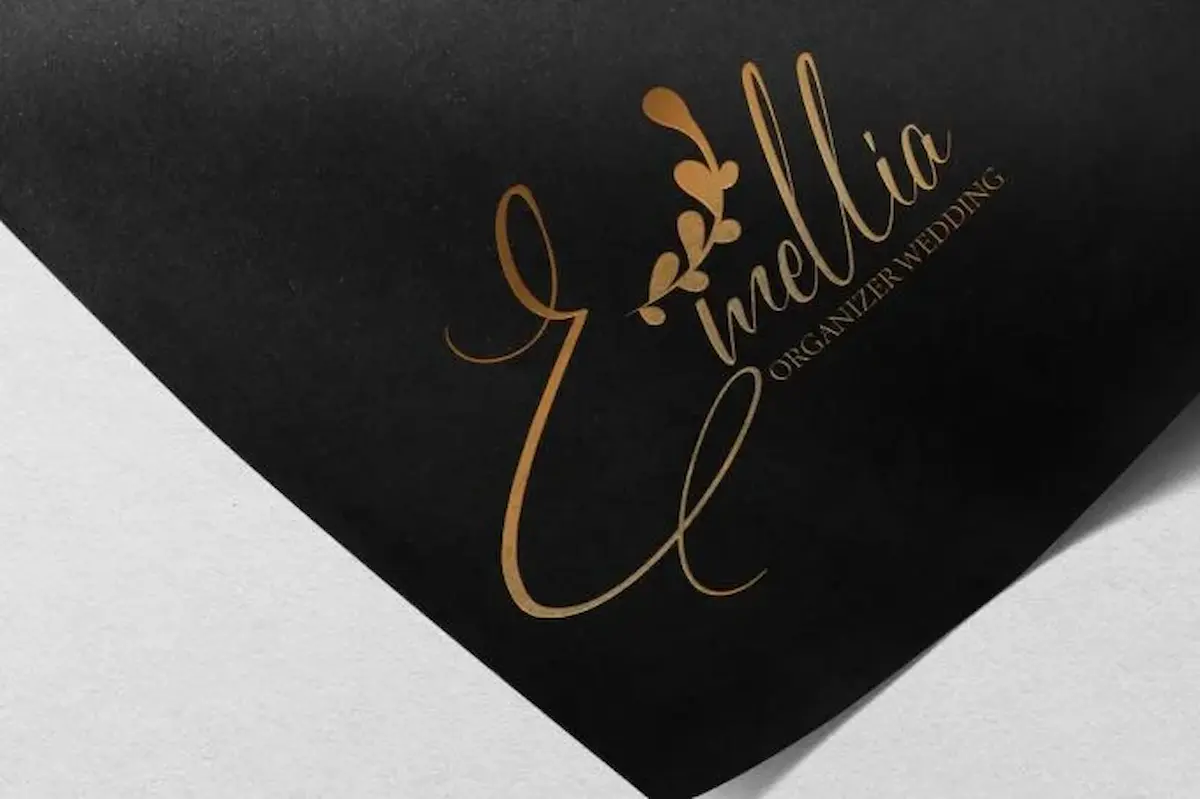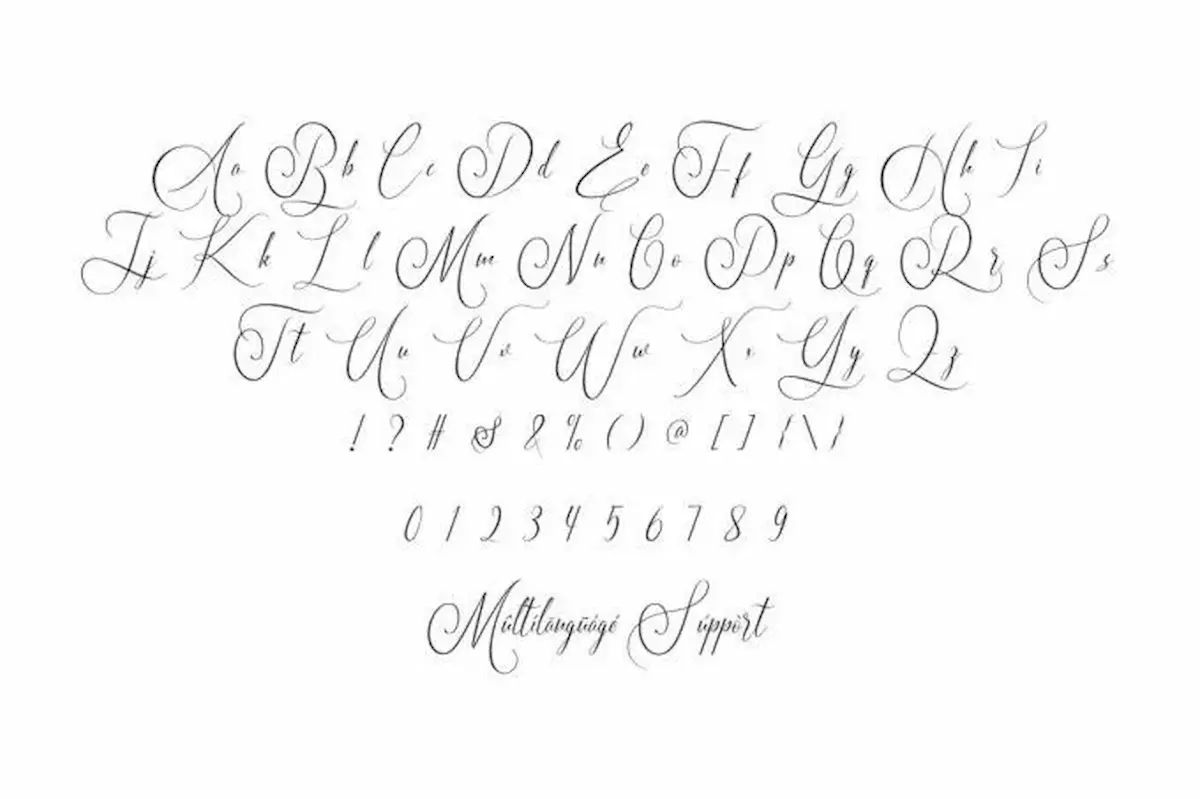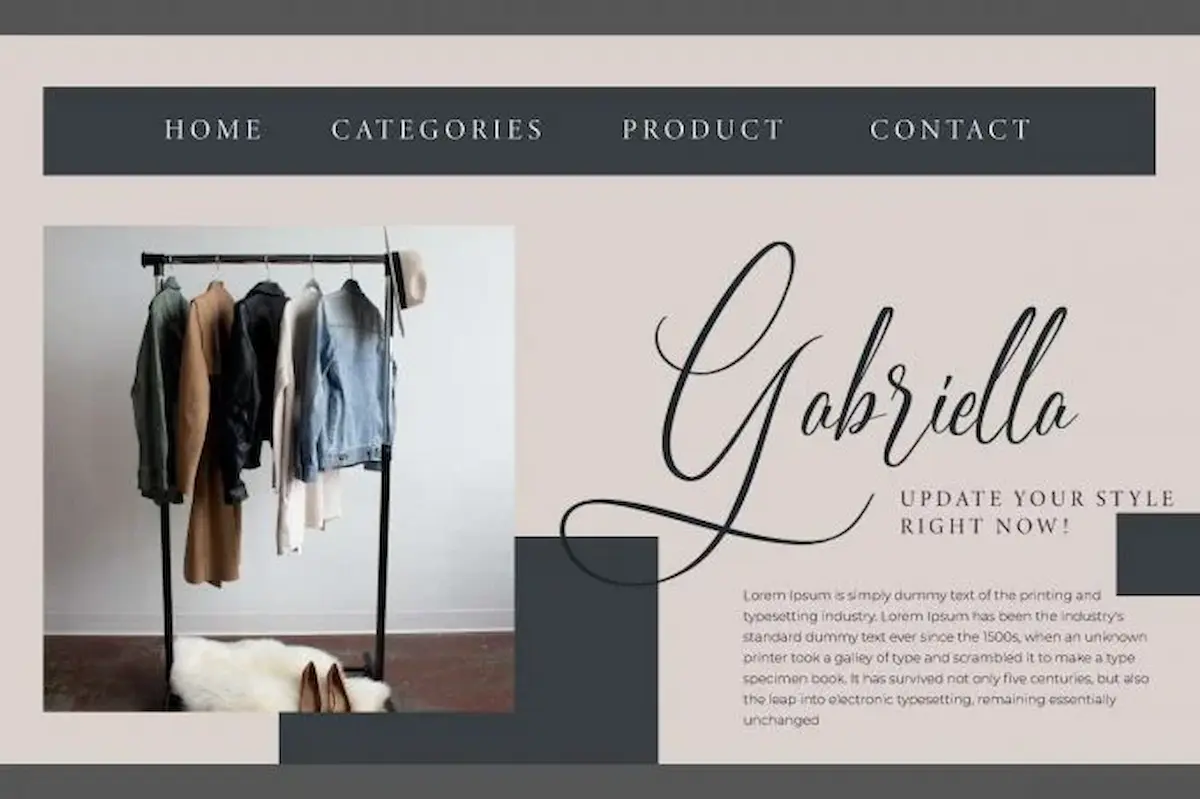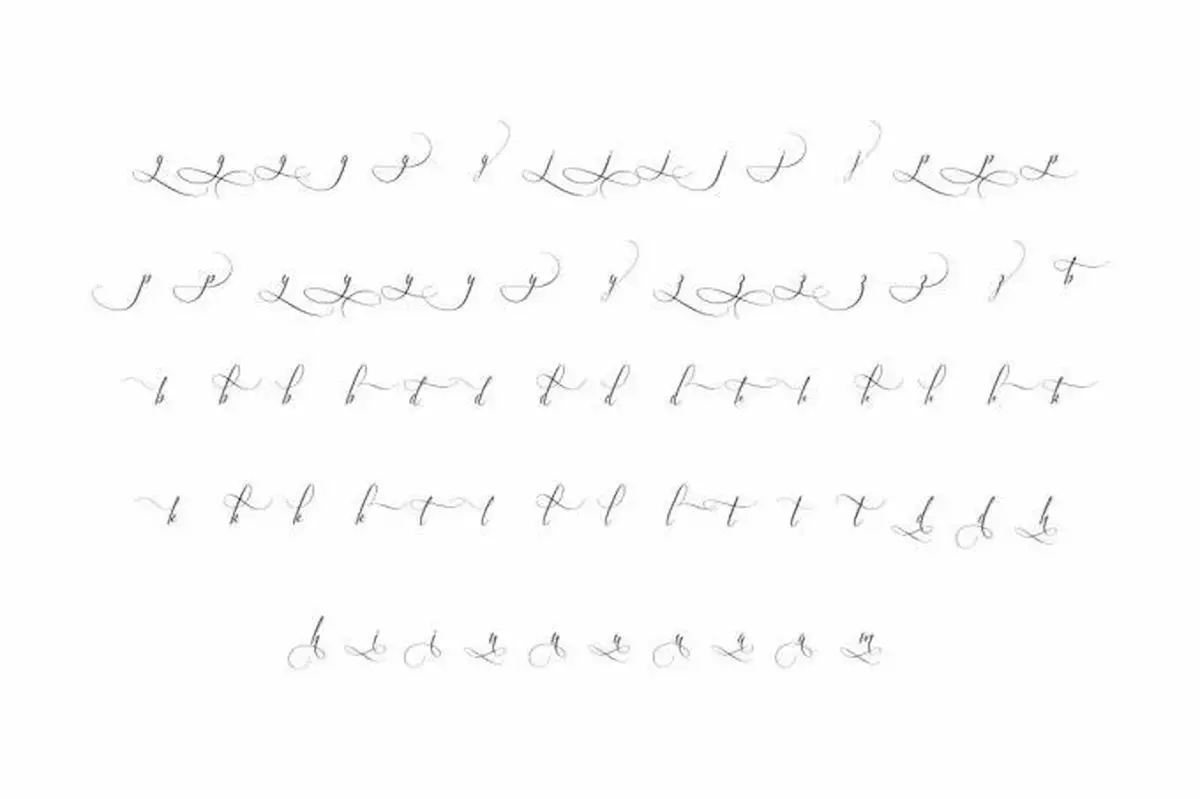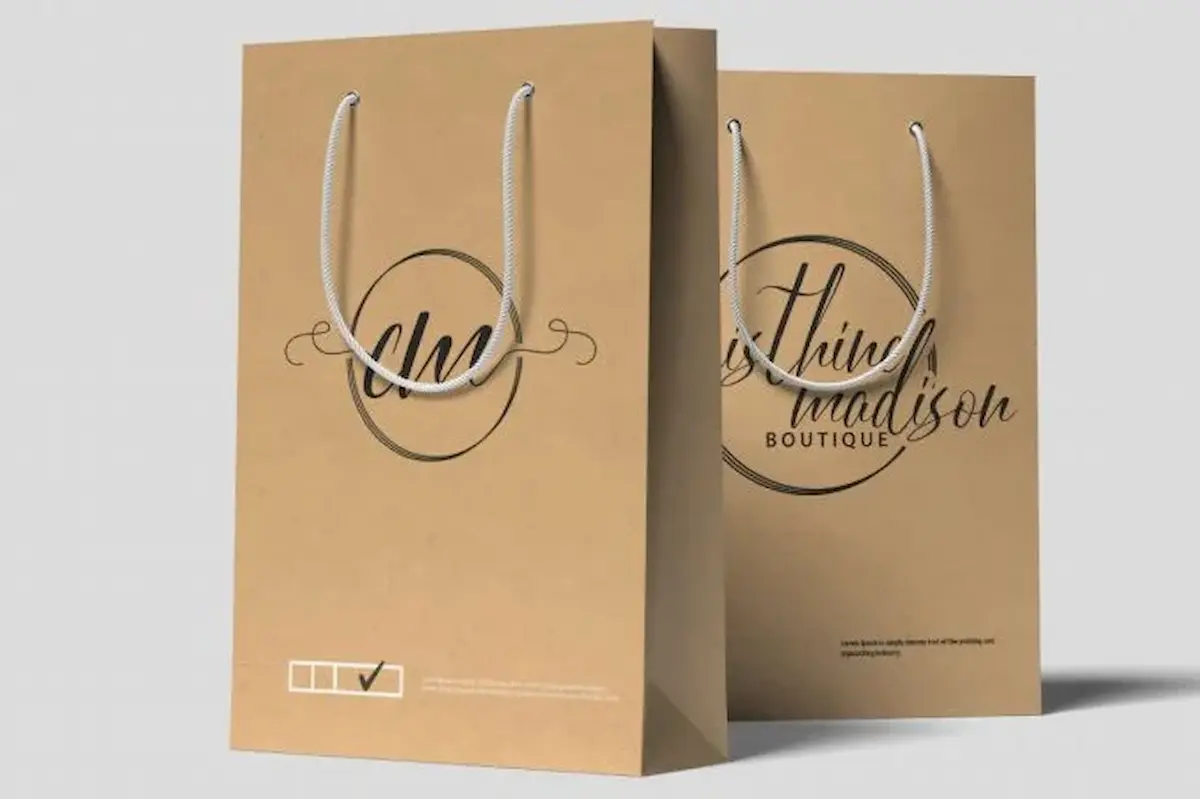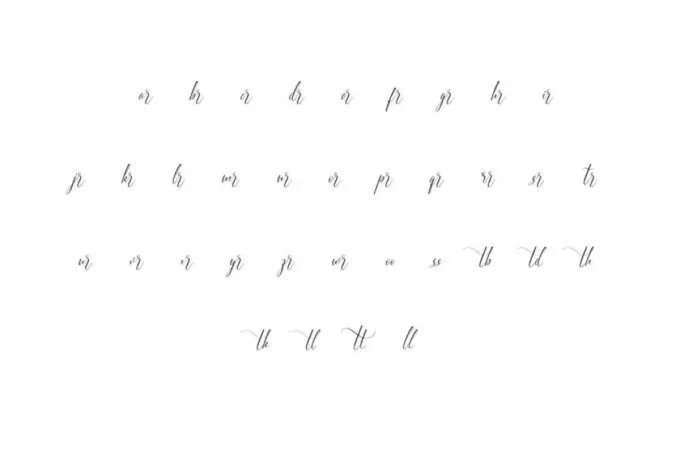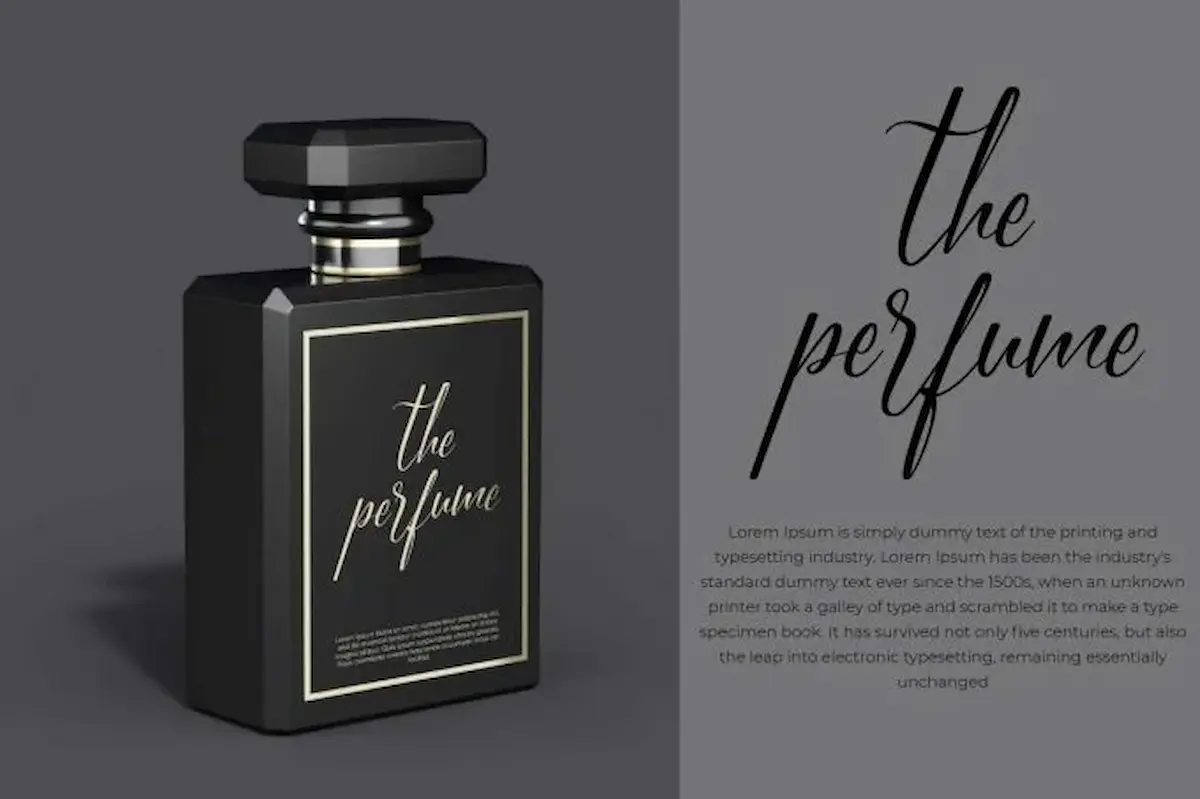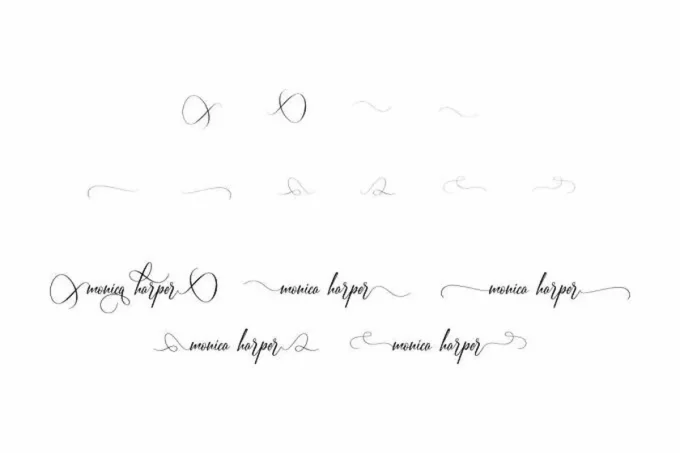
Monica Harper Font is a calligraphy font with a beautiful and classy by NihStudio. This font will be great for clothing, jewelry, weddings etc.
Monica Harper Font is a calligraphy script font that is inspired by natural handwriting with curl-like letterforms that make it look luxurious made by NihStudio. Please try the font by typing your own text below. Note that the test font below is a demo file, so some specimens/characters will not show up.
Monica Harper Font will be great for any projects including : logo branding, lettering, products packaging, signage, social media post, stationery, etc. This font comes with a full set of characters, uppercase and lowercase letters, numbers and punctuations. Also the alternate character, its cool and exclusive ligatures and swoosh make it stand out.